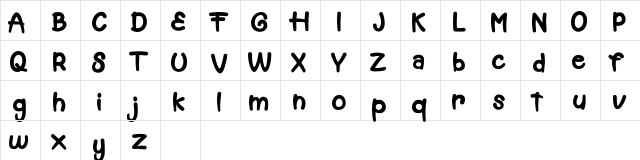
Muffin Cake DEMO Regular
| Designer | Raditya Putra Pratama - Raditya Type |
Design Context for Muffin Cake DEMO Typeface
Muffin Cake DEMO is a composed and adaptable typeface that performs quietly and consistently across a wide range of design contexts.